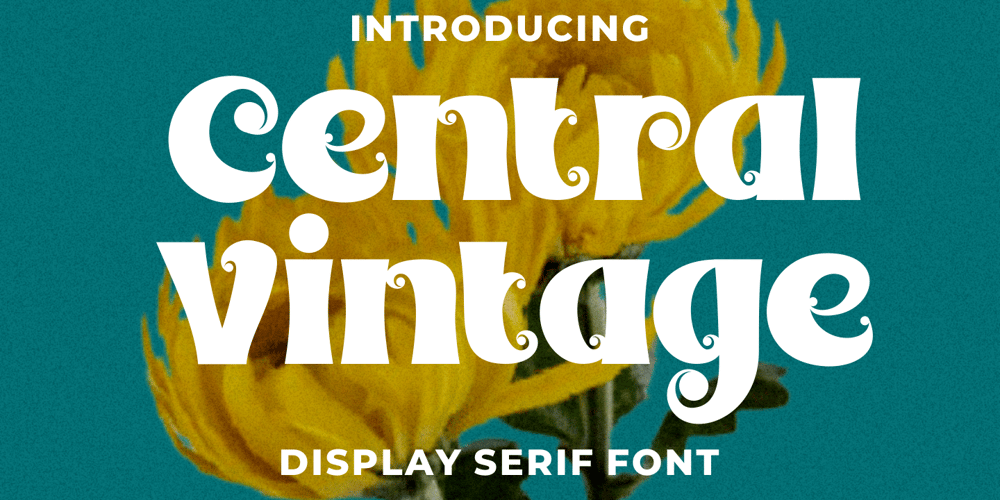
Central Vintage
Central Vintage font
Central Vintage Font Family was designed by Putra Novembria Candra Kusuma and published by Putracetol. Central Vintage contains 1 styles and family package options. Central Vintage – Display Font is a striking font that seamlessly blends the boldness of a display style with the groovy charm of vintage aesthetics. This font exudes a perfect balance of retro nostalgia and modern appeal, making it a versatile choice for a variety of design projects. With its bold and groovy serif style, Central Vintage is ideal for logos, quotes, posters, titles, product branding, invitation cards, printing materials, and any design that requires a bold and impactful font.